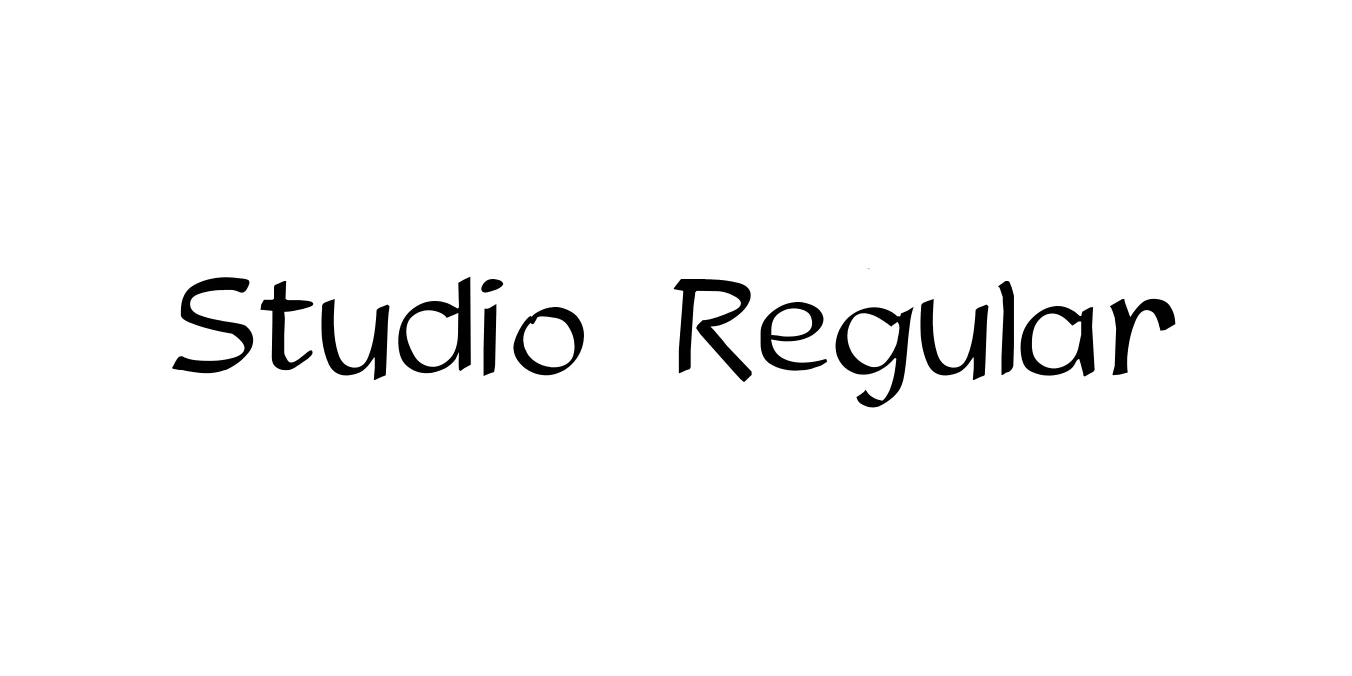
Studio Regular
Designed by Martin Wilke
| Category | Script / Display |
| Designer | Martin Wilke |
Studio Regular is a classic script-inspired display typeface designed by Martin Wilke in 1951 for the Bauer Type Foundry. It is characterized by its informal, hand-lettered aesthetic that captures the rhythmic flow of mid-century commercial art, providing a distinct sense of human touch and personality to any layout.
This typeface is particularly noted for its fluid strokes and approachable style, making it a favorite for vintage-inspired advertising and artisanal branding. Over the years, it has maintained its relevance in the digital age as a reliable choice for designers seeking to evoke a sense of nostalgia, craftsmanship, and casual elegance.
Studio Regular Best Uses
Excellent for creating approachable and artistic brand identities.
Ideal for vintage-style product labels and gourmet food packaging.
Perfect for eye-catching headers and informal lifestyle graphics.
Adds a personal, hand-crafted touch to wedding and event stationery.